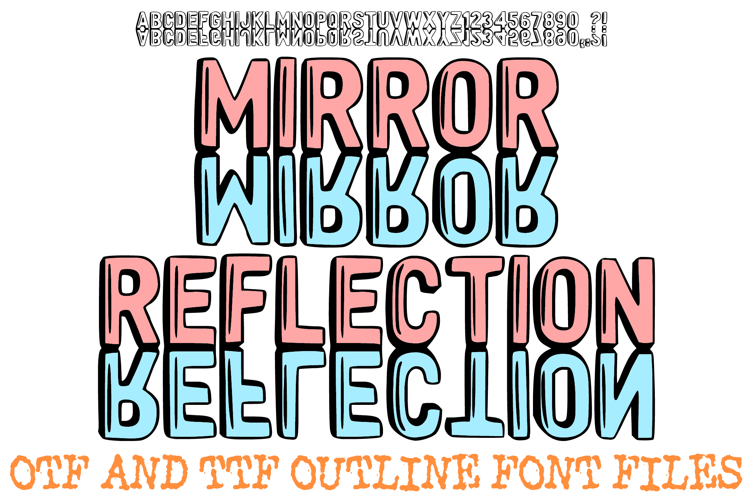
Mirror Reflection Outline Font Typography Lettering ABC
Double the impact of your creative projects with the Mirror Reflection Font! This unique hand-drawn display alphabet features bold, blocky characters where each letter and number includes its own perfect upside-down reflection directly attached to the base. It is an ideal choice for modern branding, sleek social media headers, eye-catching posters, and "mind-bending" digital art.
The symmetrical, double-stacked design creates an instant professional "water reflection" or "glossy floor" effect without any extra editing. Whether you are designing a high-end fashion logo, a lake-themed event flyer, or a unique headline for a digital planner, the Mirror Reflection Font provides a balanced and sophisticated foundation for your text.
Perfect Symmetry: Every character is paired with an identical mirrored counterpart for a perfectly balanced look.
Clean Blocky Silhouettes: The thick, well-defined outlines ensure the text remains legible even with the double-image effect.
Instant 3D Depth: The mirrored base adds an automatic sense of space and perspective to your typography.